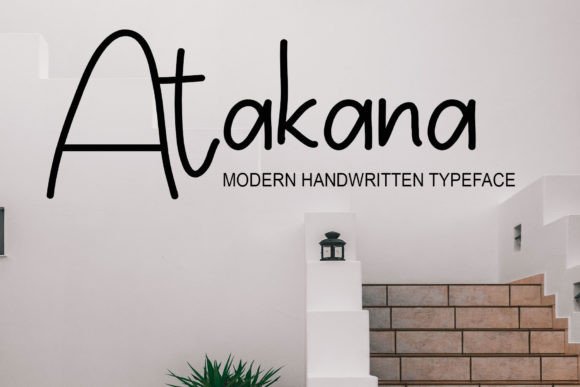
A Clean and Casual Look with Atakana Handwritten Font
The Atakana Handwritten Font is a neat and versatile script typeface that adds clarity and charm to any design. With its smooth lines and effortless style, this font provides a casual yet polished look. Whether you’re crafting digital presentations or designing greeting cards, Atakana brings a balanced and approachable feel to your work.
Perfect for Crafts, Cards, and Digital Designs
Atakana is especially well-suited for DIY crafts, social media graphics, presentations, and greeting cards. Its clean, handwritten appearance makes it perfect for conveying a personal touch while maintaining readability and simplicity.
In addition, this font adapts seamlessly to both professional and playful projects. You can use it to create engaging digital content, or add it to packaging designs, invitations, and printable quotes that require a handmade, human feel.
A Neat Script with Everyday Elegance
What sets the Atakana Handwritten Font apart is its tidy letterforms and effortless flow. It’s casual enough to feel personal, yet clean enough to remain professional. This balance makes it one of those fonts you’ll reach for again and again—no matter the occasion.
Moreover, the font’s natural rhythm enhances the visual experience. Your audience will find your text easy to read while appreciating the unique charm that comes from a handwritten aesthetic.
Works Across All Platforms and Formats
From digital presentations to printable materials, Atakana performs reliably across various formats. Its legibility at both small and large sizes means you can use it confidently in headlines, subtitles, or body text without sacrificing clarity.
Furthermore, this font works well as an overlay on textured backgrounds or paired with minimalist sans-serif fonts for modern layouts. Its versatility ensures that it complements a wide range of creative styles.
Why Choose Atakana Handwritten Font?
Here are a few reasons Atakana is a favorite among creatives:
Clean, casual handwritten style
Ideal for cards, crafts, digital content, and more
Maintains clarity in various sizes and formats
Works well in both personal and professional designs
Adds a balanced, polished touch to any layout
Make Atakana Your Everyday Design Essential
In conclusion, the Atakana Handwritten Font is a go-to script that fits effortlessly into all types of creative projects. Whether you’re expressing yourself through art, building engaging presentations, or designing heartfelt greeting cards, Atakana offers the perfect blend of neatness and personality.
Let this font bring a touch of ease and professionalism to your next project. Once you use Atakana, it may just become your favorite font for all occasions.